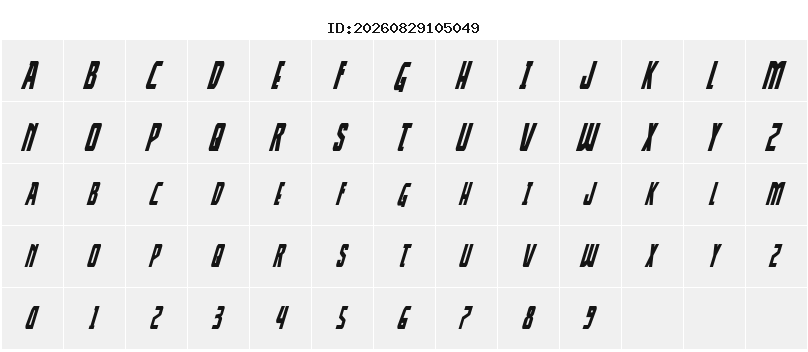
Thunder-Hawk Drop Condensed Italic Preview
• Font Name: Thunder-Hawk Drop Condensed Italic
• Font Style: Condensed Italic
• Full Font Name: Thunder-Hawk Drop Condensed Italic
About Thunder-Hawk Drop Condensed Italic.ttf
Thunder-Hawk Drop Condensed Italic.ttf is a modern, elegant sans-serif font designed for ultimate readability and visual harmony. Perfect for branding, headlines, web design, and print materials.